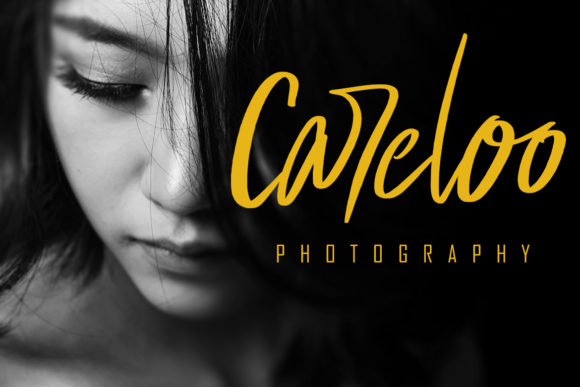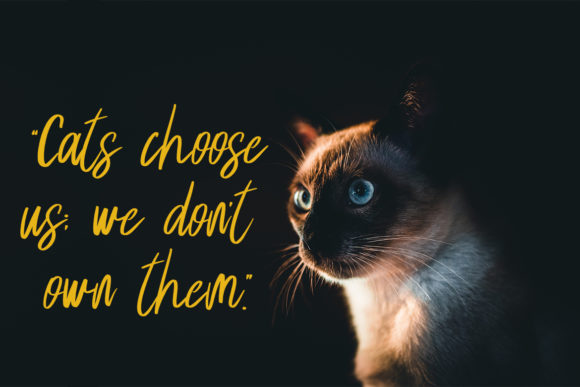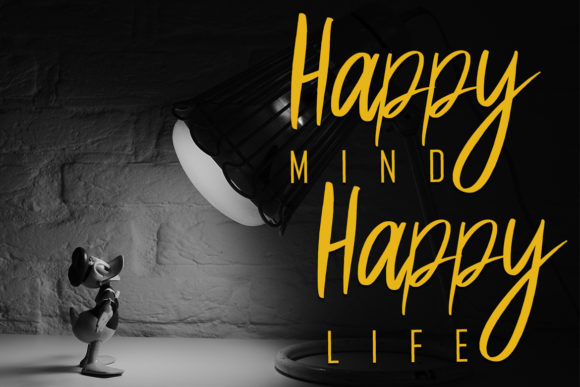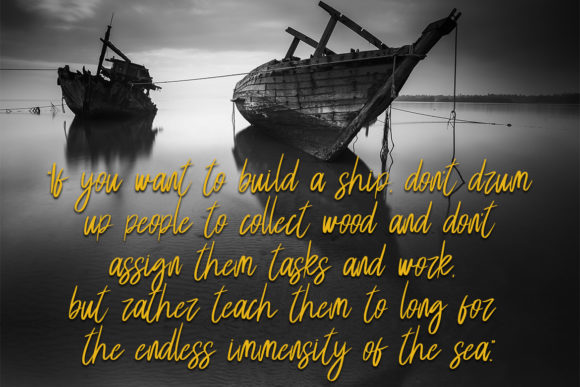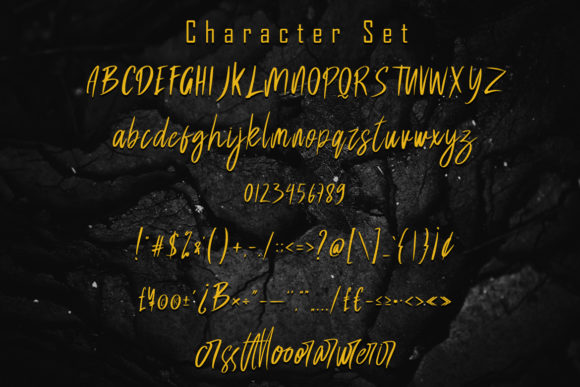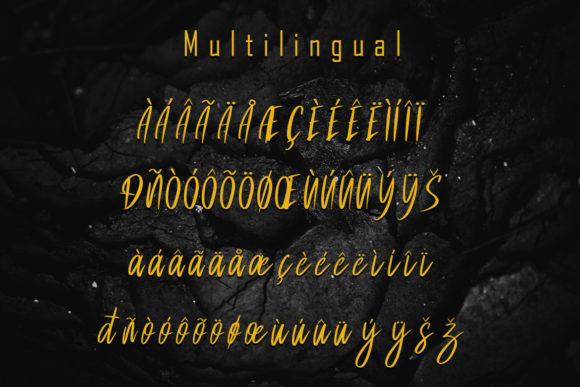
The Dalloss Font: A Timeless and Versatile Beauty
Have you ever been in the middle of a design project, and suddenly, you’re stuck on finding the perfect font? I recall a recent experience where I was working on a wedding invitation project, and my client wanted a font that was both elegant and playful. After hours of searching, I stumbled upon the Dalloss font, and it instantly captured my heart. In this article, I’ll share my journey with Dalloss, its features, and how to make the most of this beautiful handwritten font.
A Personal Review of Dalloss
As a designer, I’m always on the lookout for fonts that can elevate my projects. Here’s what I love about Dalloss:
- ✨ Flowing and relaxed style: Dalloss has a unique, effortless feel that makes it perfect for a wide range of projects, from wedding invitations to social media posts.
- ✅ Versatility: This font can be used for both formal and informal designs, making it a great addition to any design library.
- 💕 Timeless appeal: Dalloss has a classic, elegant look that won’t go out of style anytime soon.
While Dalloss is an amazing font, it’s not without its quirks:
- 🤔 Limited multilingual support: Dalloss primarily supports English and some European languages, so it may not be the best choice for projects requiring extensive multilingual support.
- ⚠️ Some kerning issues: As with any font, there might be some kerning issues, especially with certain letter combinations. However, these can be easily adjusted in most design software.
How to Use Dalloss: A Practical Guide
The Story Behind Dalloss
Dalloss was designed with the intention of creating a timeless, elegant font that could be used for a wide range of projects. The designer aimed to craft a font that would evoke a sense of relaxation and sophistication, making it perfect for designs that require a touch of elegance.
| What is Dalloss best used for? | Dalloss is a versatile font suitable for various design projects, including wedding invitations, stationery, social media graphics, and more. |
| Is Dalloss a script font? | Yes, Dalloss is a handwritten script font with a flowing, relaxed style. |
| Does Dalloss support multilingual languages? | Dalloss primarily supports English and some European languages, but it may not have extensive multilingual support. |